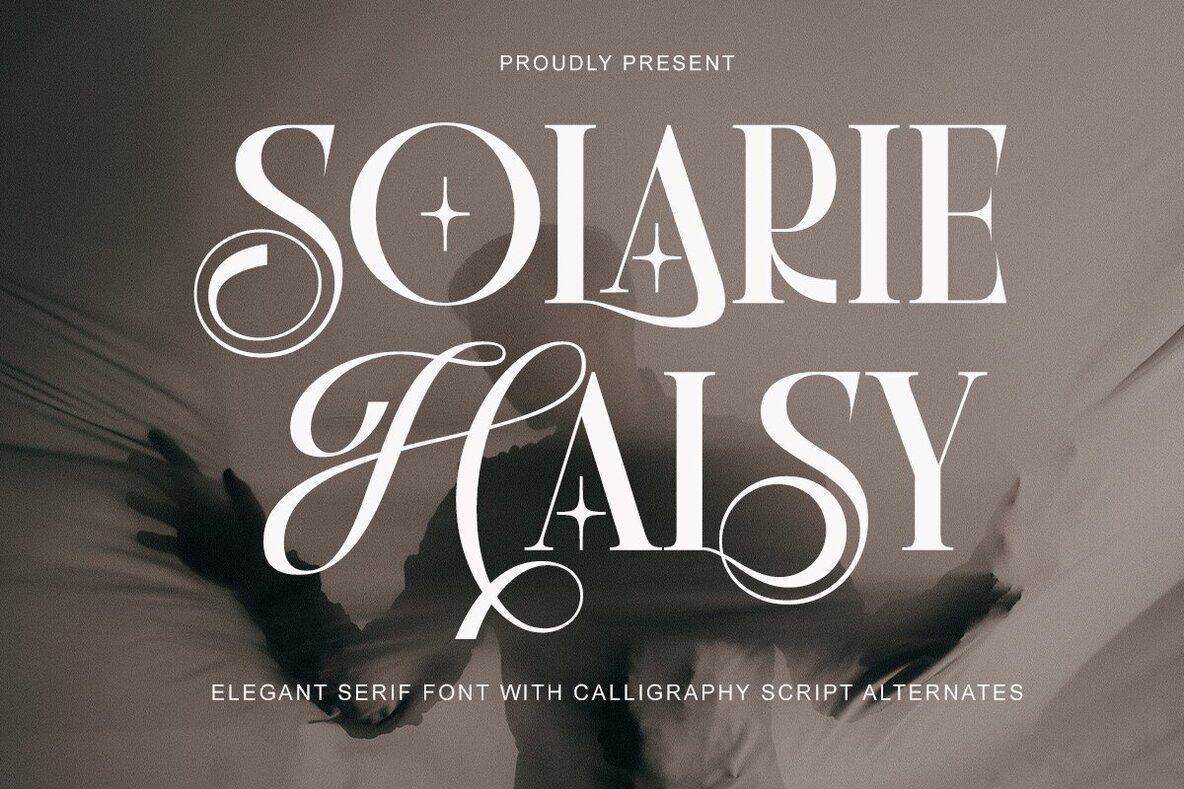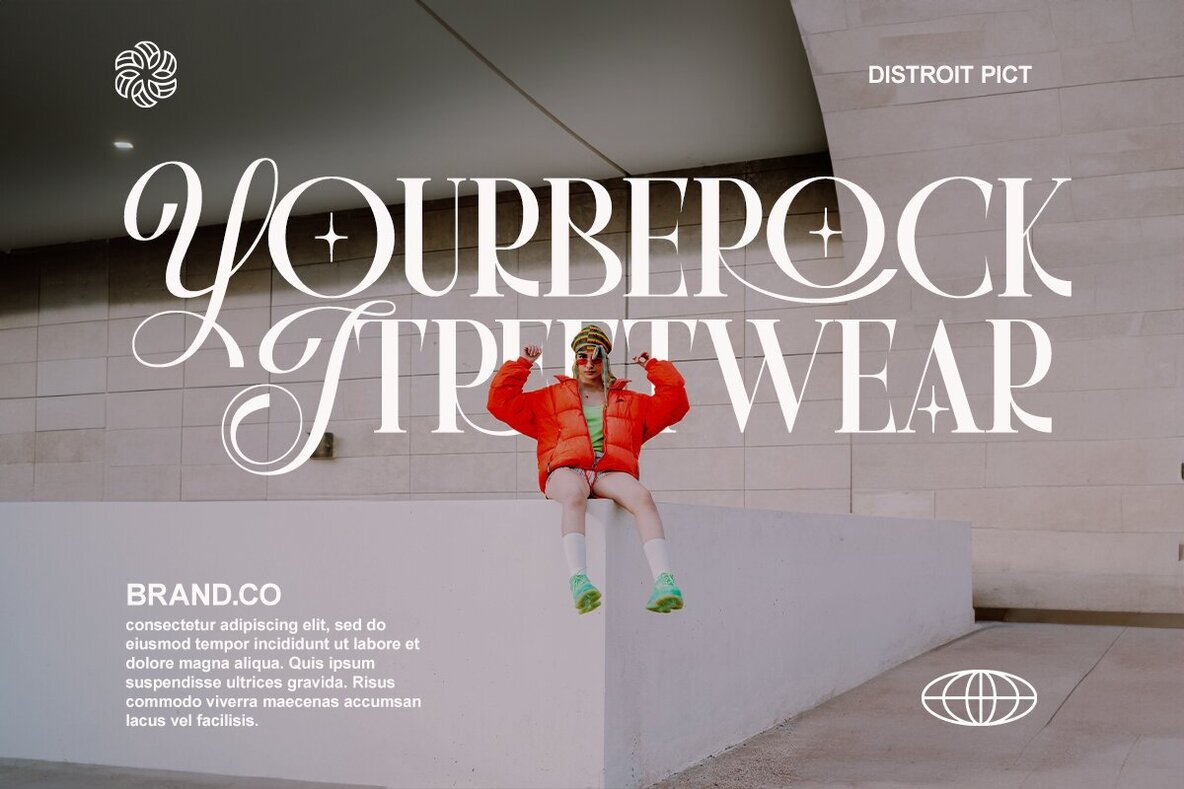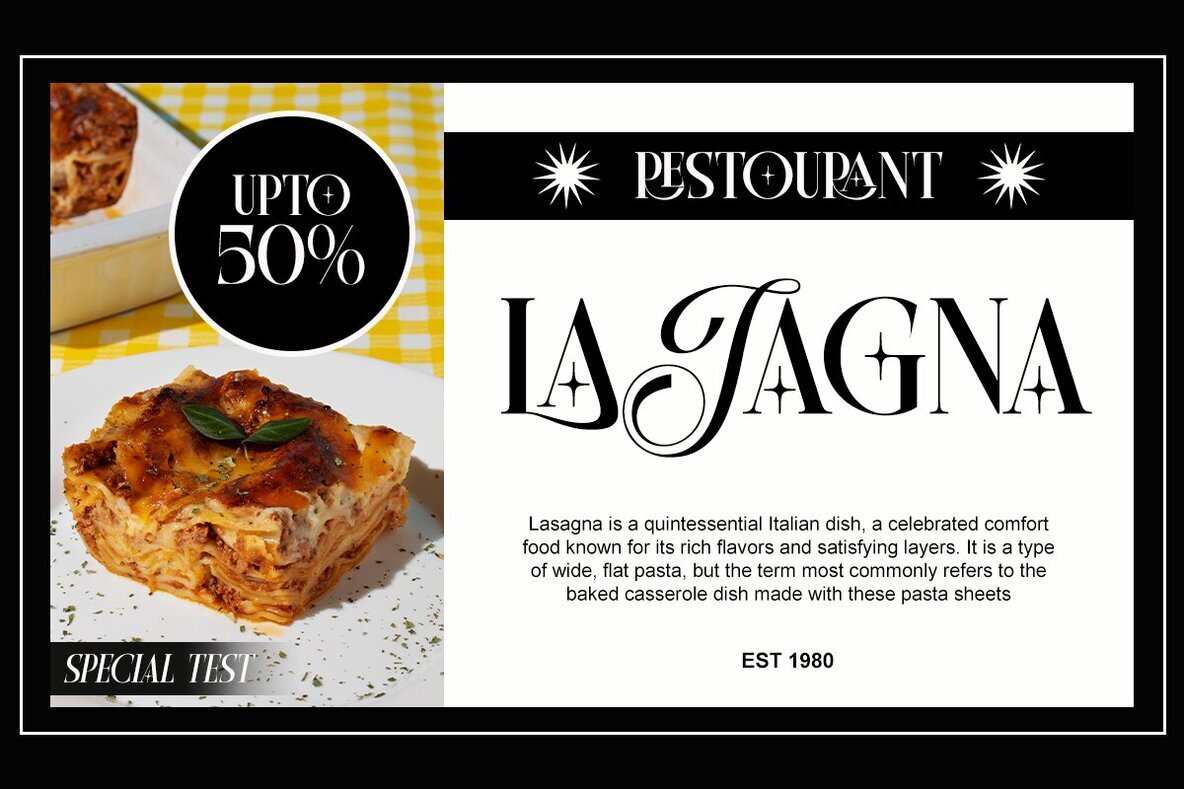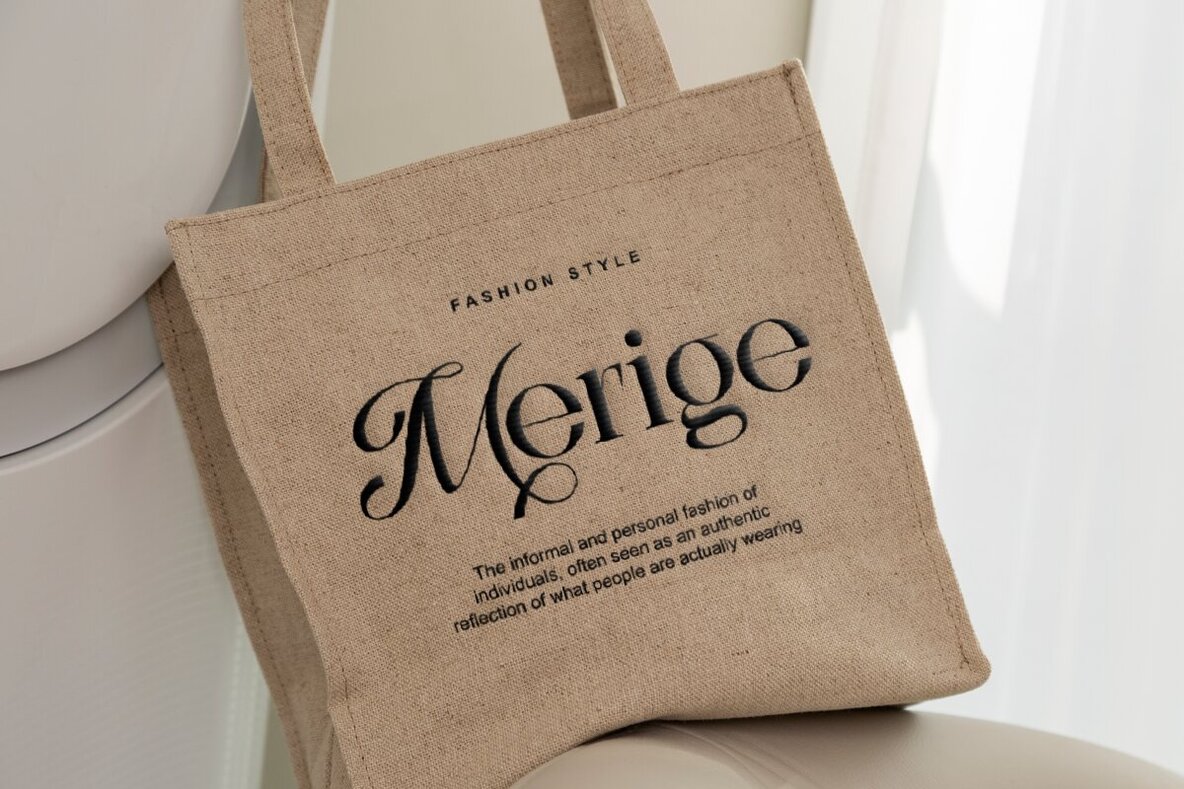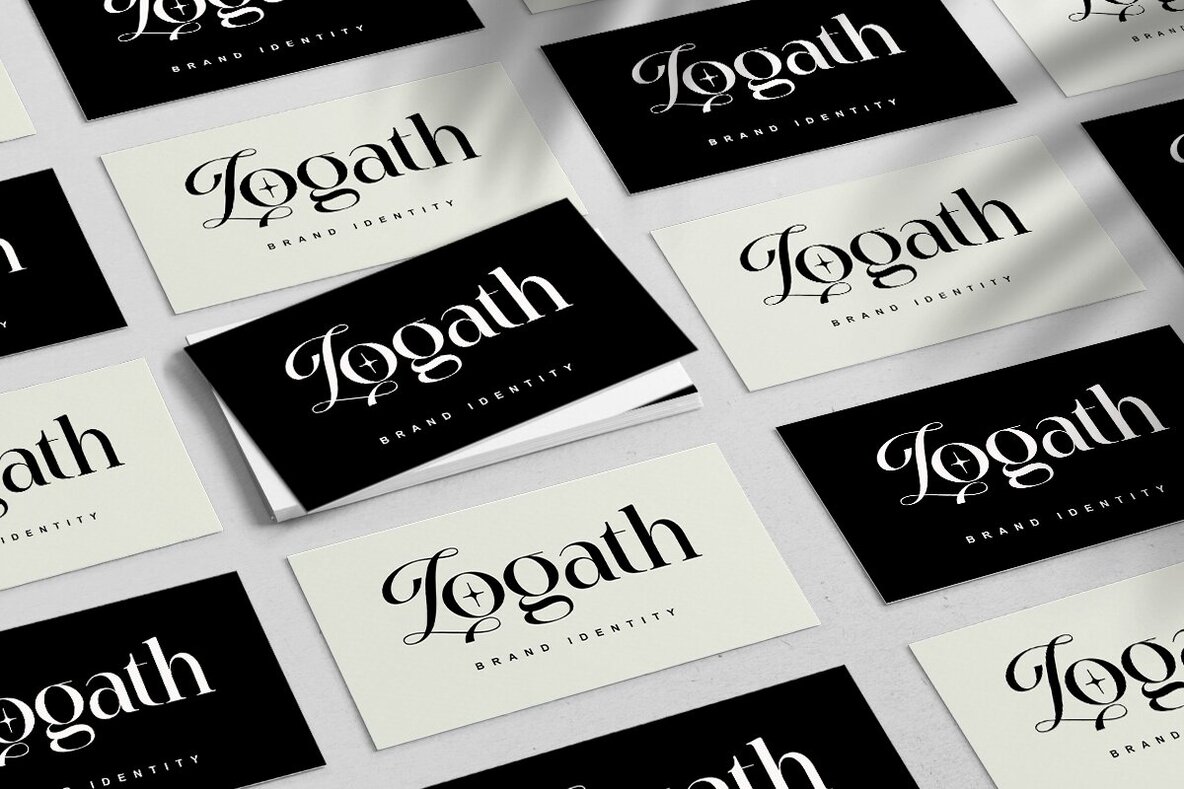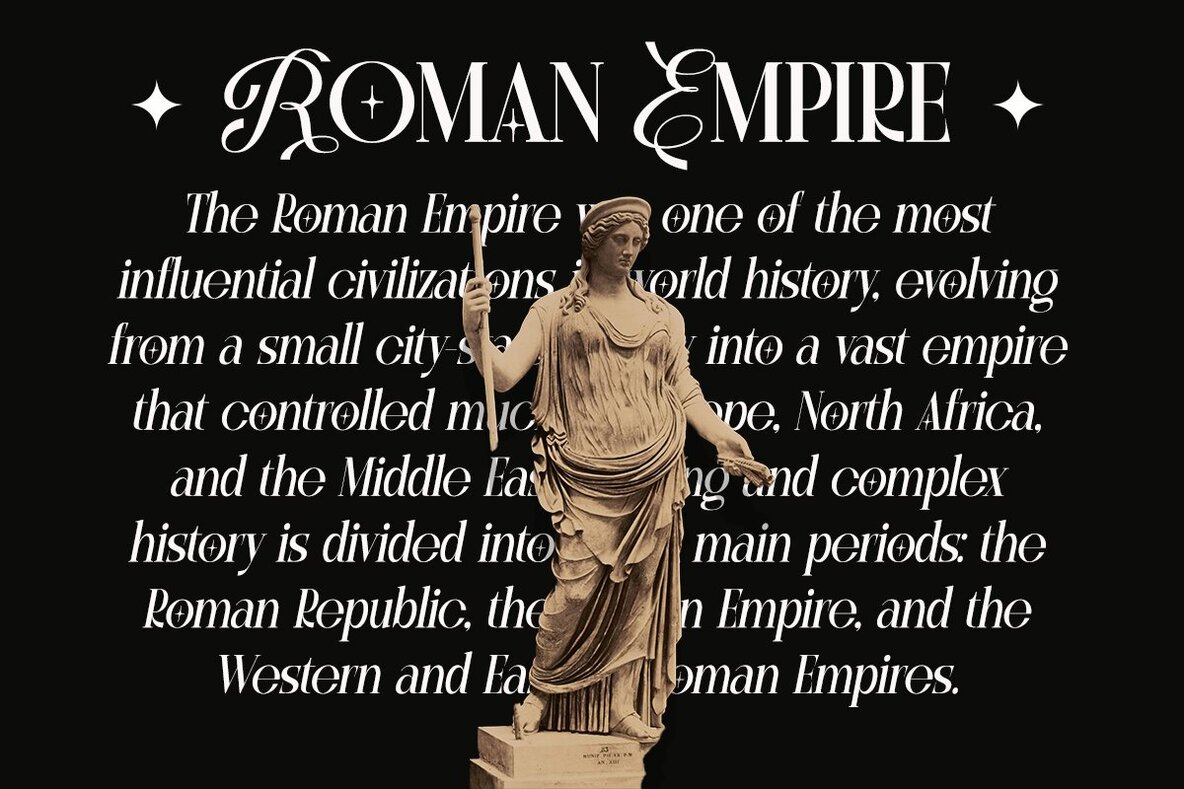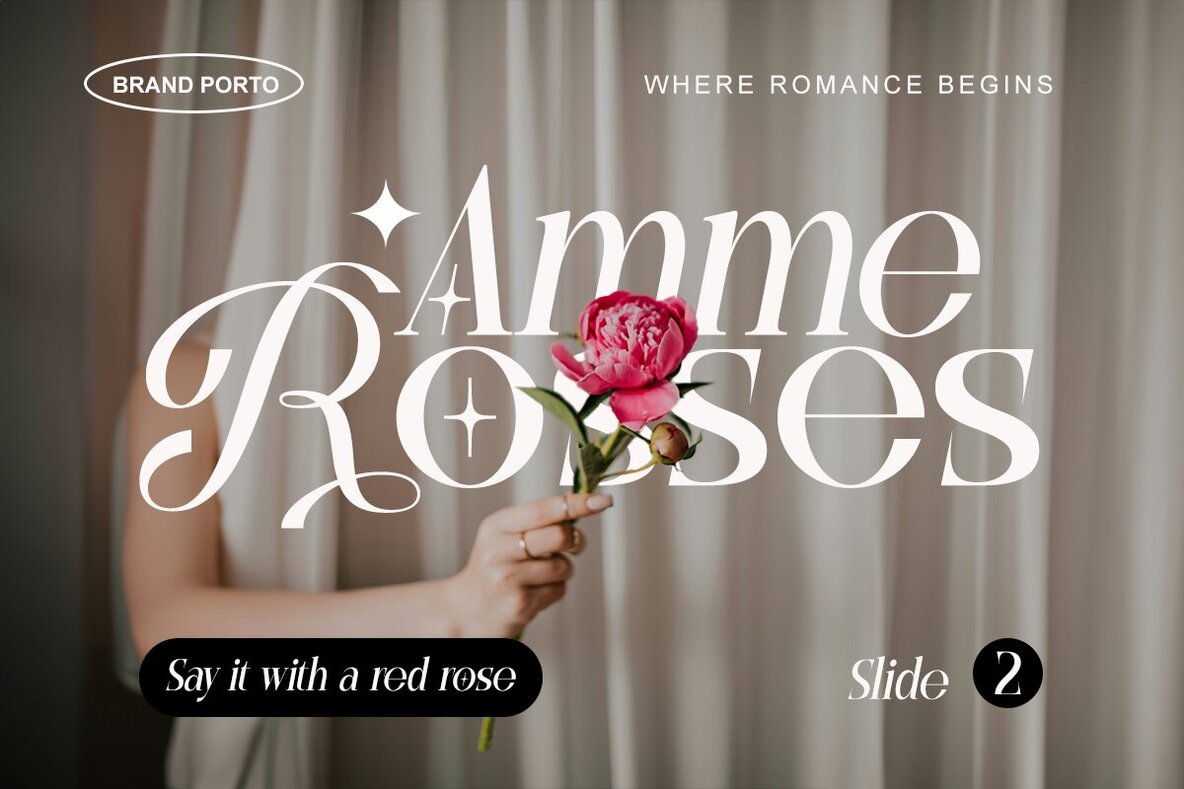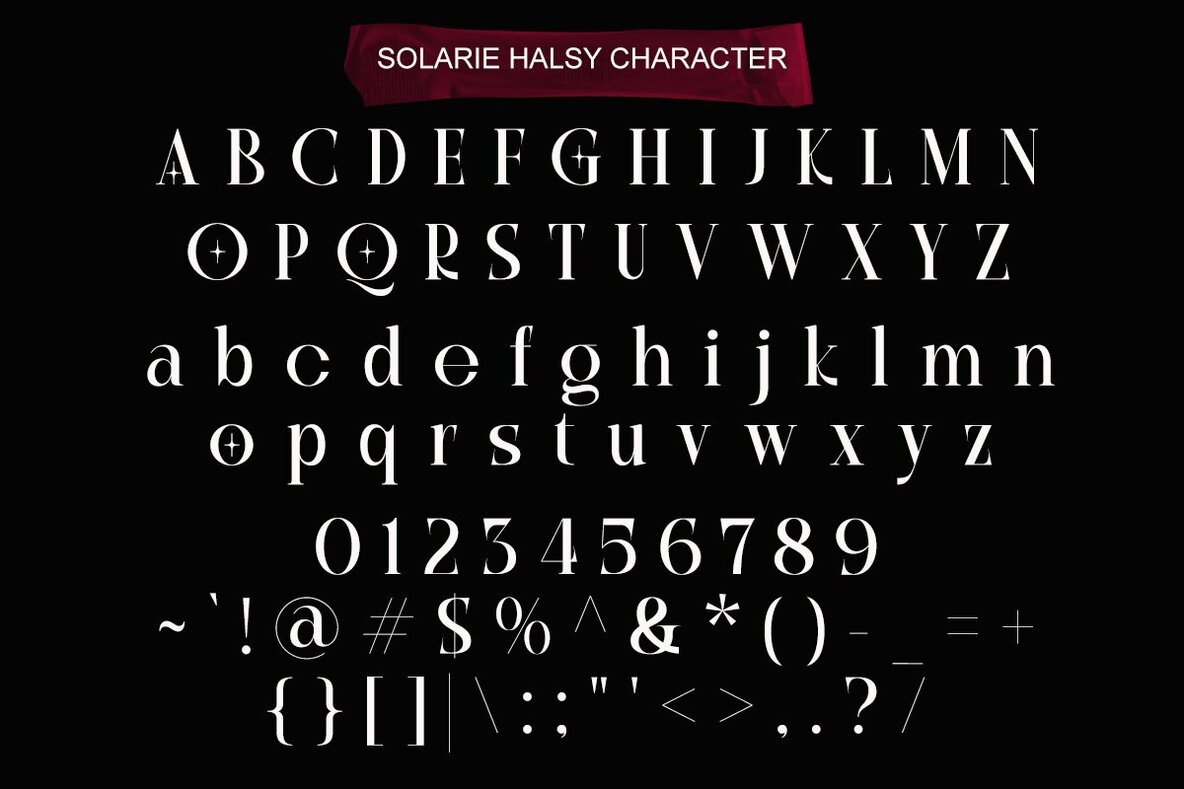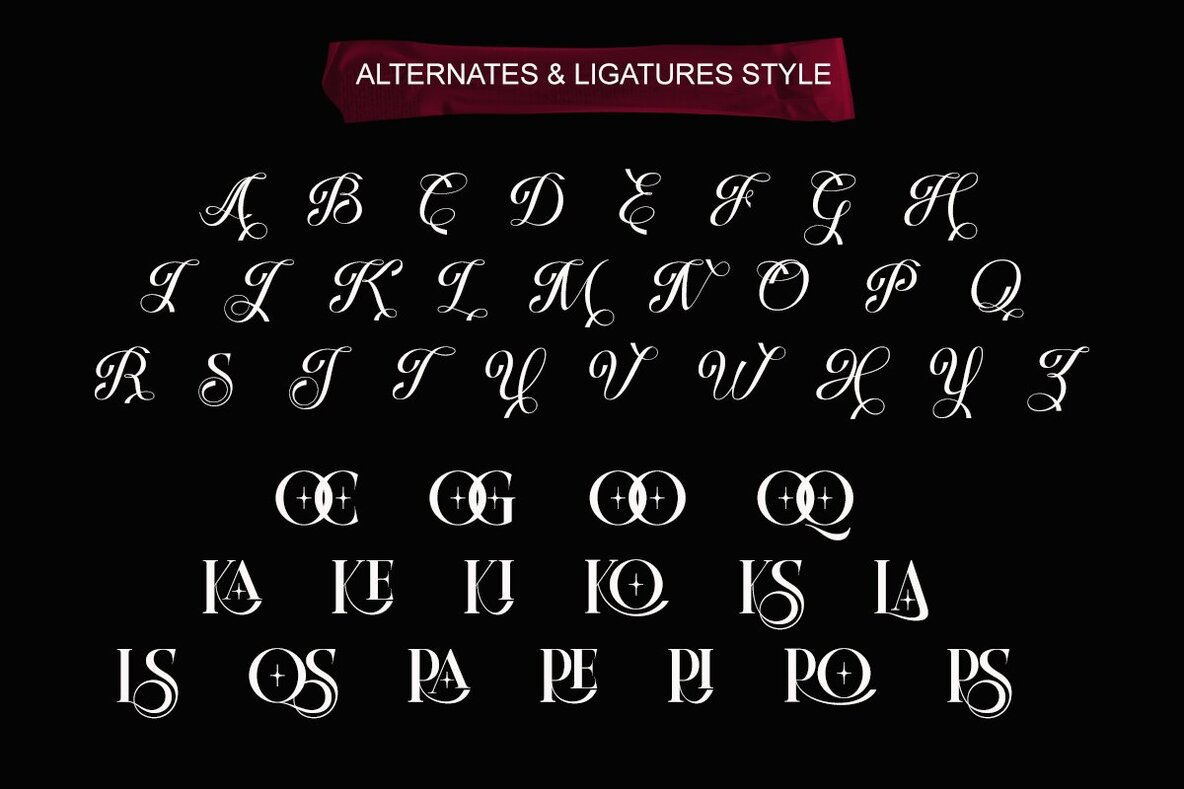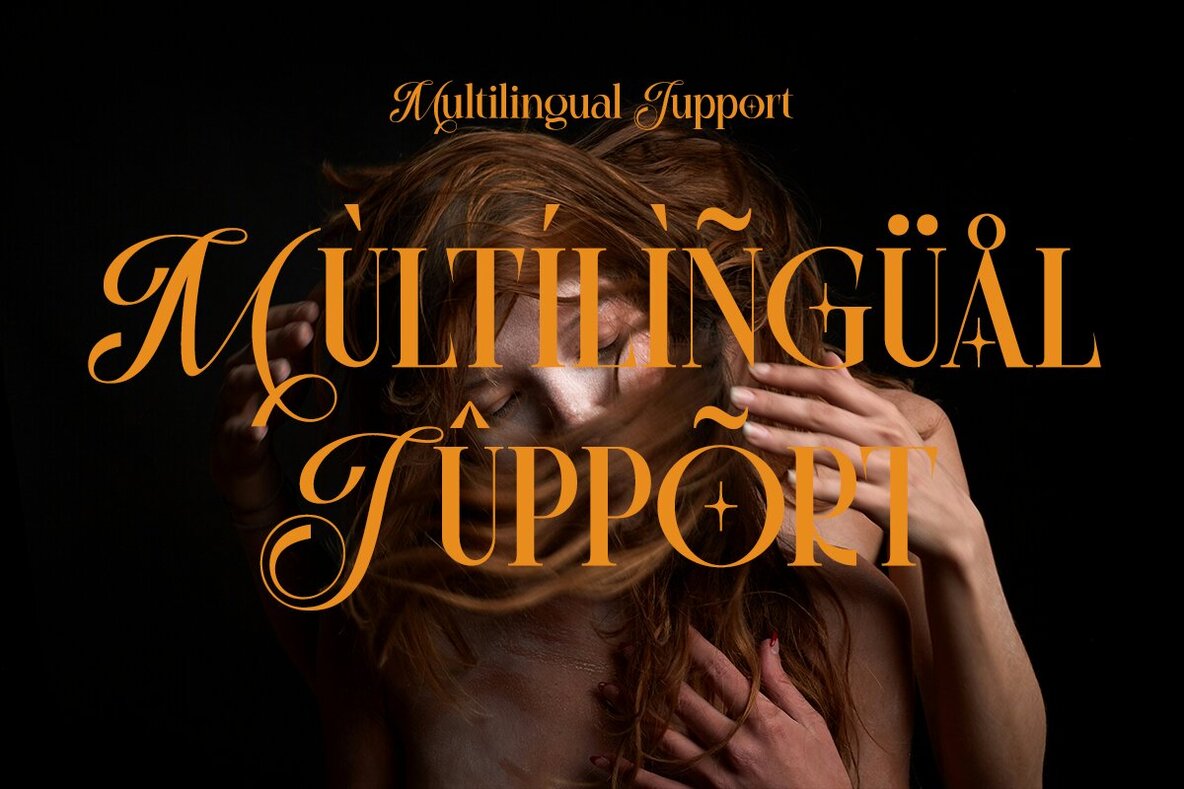
Solarie Halsy Font
Explore the exquisite elegance of the Solarie Halsy font, a harmonious blend of timeless serif design and graceful calligraphy script. Engineered for sophistication, Solarie Halsy is ideal for making a statement in headlines, titles, and concise text. Whether you're designing a vintage-inspired advertisement or crafting modern branding, this font will add a touch of class and refinement. Perfect for use in logotypes, packaging, editorial designs, modern logos, website content, social media quotes, and wedding branding. Transform your next project with the versatile allure of Solarie Halsy, where elegance meets modern style.Solarie Halsy - Elegance in Serif